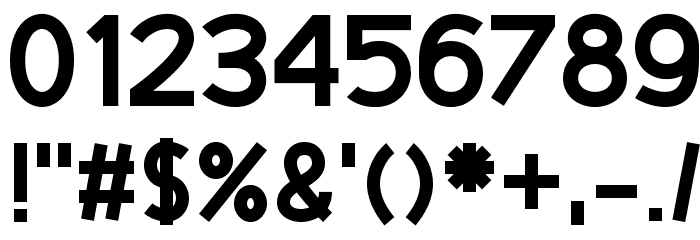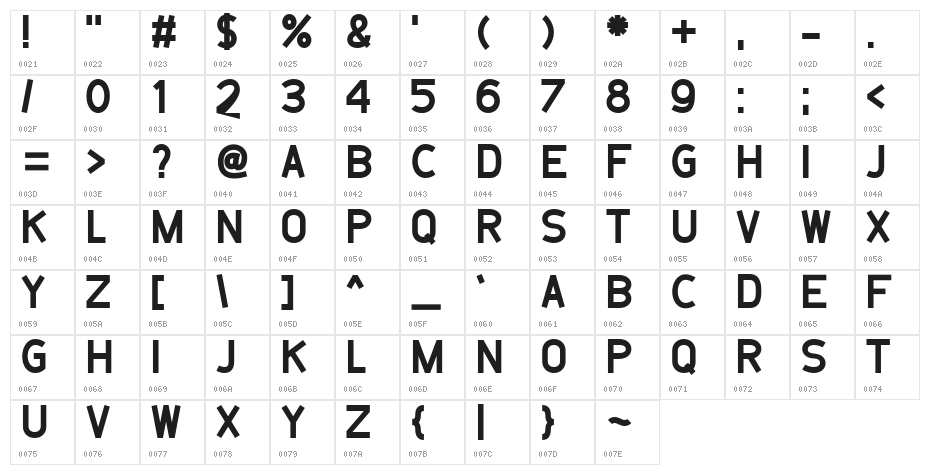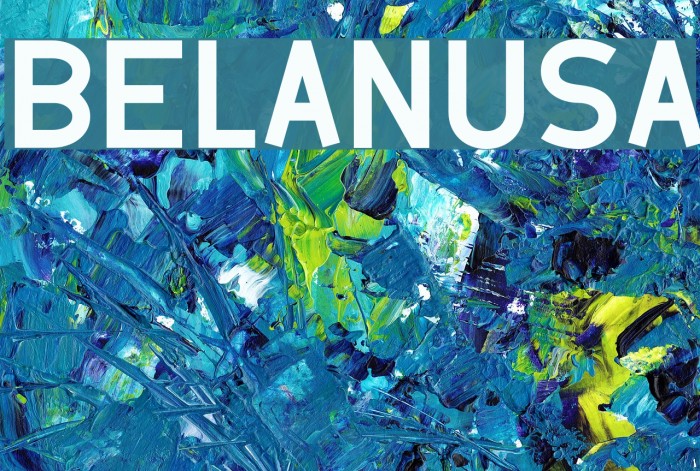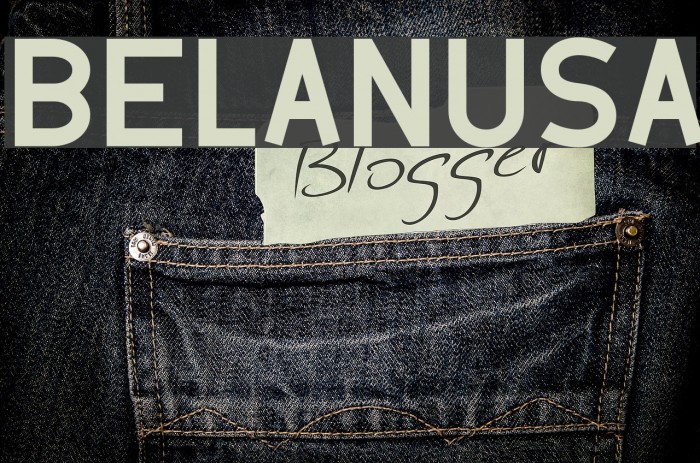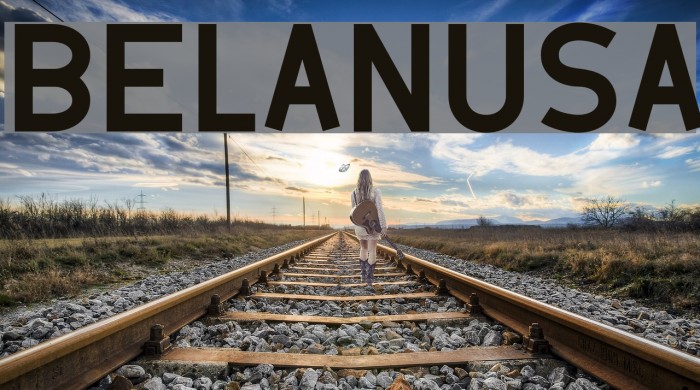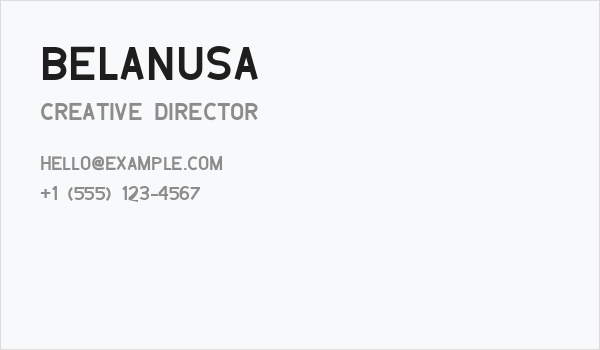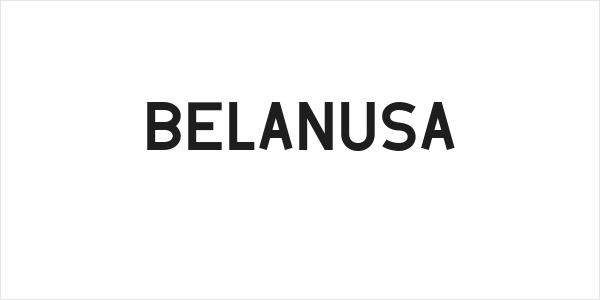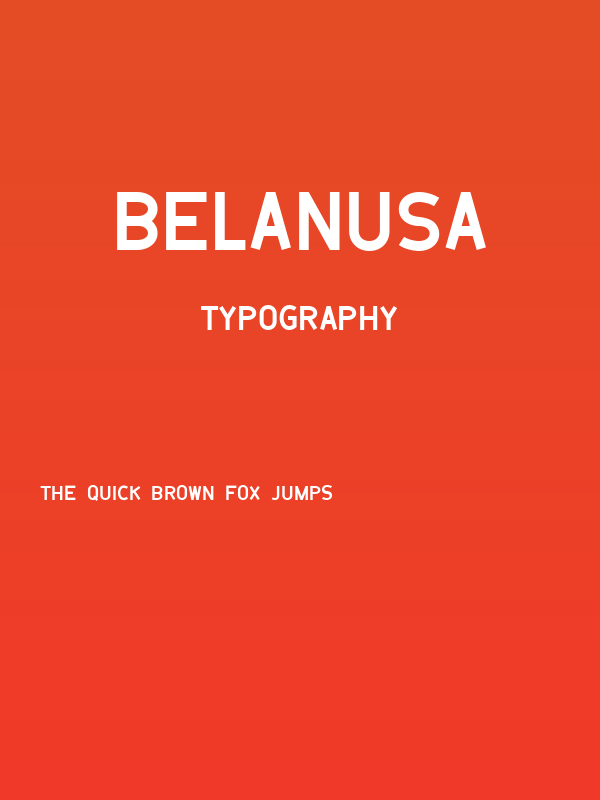
Belanusa Font
Belanusa Description
This font features a bold and modern sans-serif style with clean, straight lines and uniform stroke widths. The characters are well-defined with a geometric structure, giving it a contemporary and professional appearance. The uppercase and lowercase letters maintain a consistent height and width, providing a balanced and harmonious look. The numerals are clear and easily distinguishable, making them suitable for various applications. Special characters are included, adding versatility to the font's usage. The overall design is straightforward yet impactful, making it ideal for projects that require a strong visual presence.